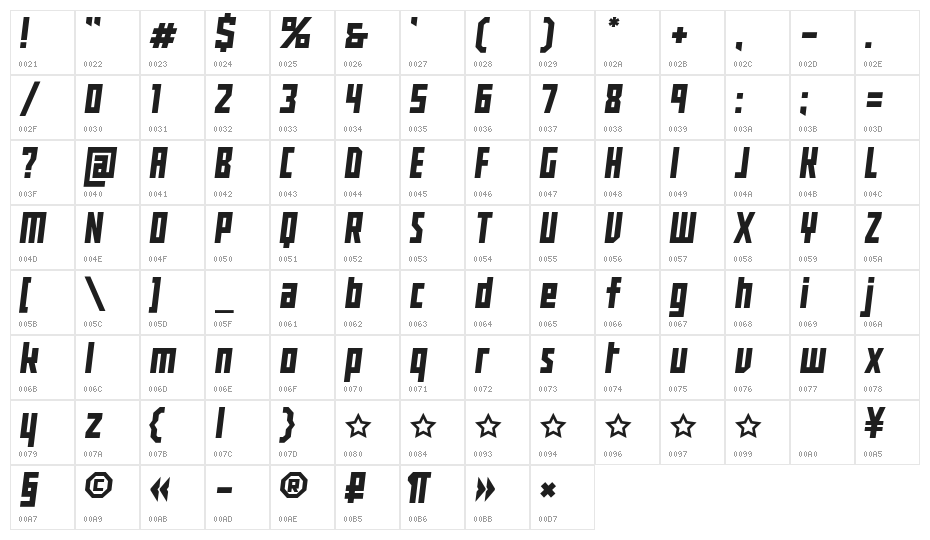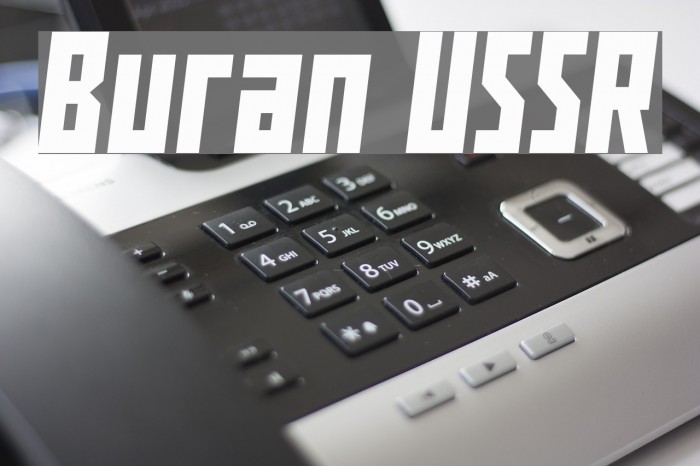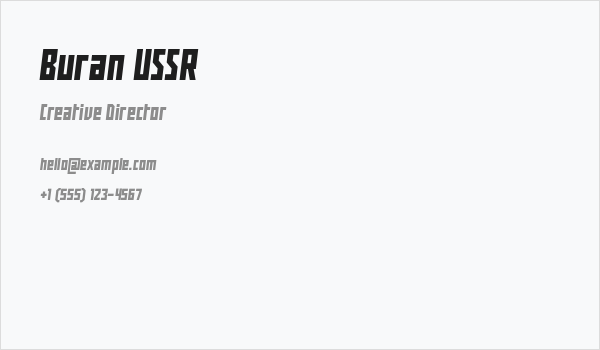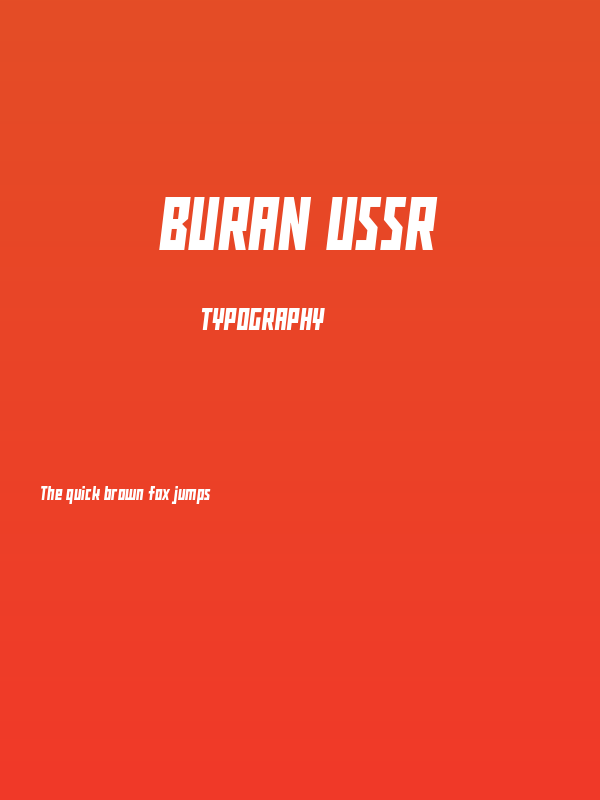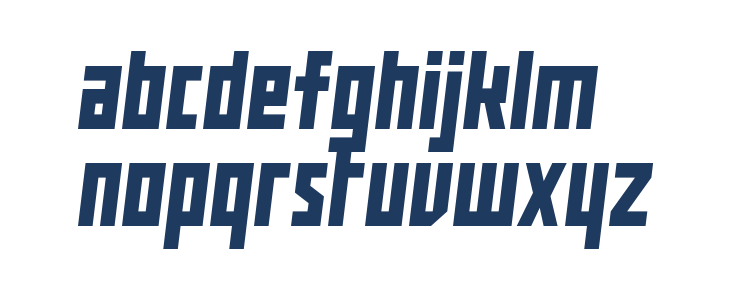
Buran USSR Font
Buran USSR Description
This font features a bold, geometric design with sharp angles and a futuristic aesthetic. The uppercase and lowercase letters maintain a consistent height, giving a uniform appearance across the text. The numbers and special characters follow the same angular style, enhancing the cohesive look. The font's strong, block-like structure makes it highly legible and impactful, suitable for attention-grabbing designs. Its unique style is reminiscent of retro-futuristic themes, making it ideal for projects that require a bold and distinctive visual identity.
| Overall Style | Futuristic, Retro |
| Proposed Projects | Ideal for posters, logos, branding, and any design requiring a strong, futuristic aesthetic. |